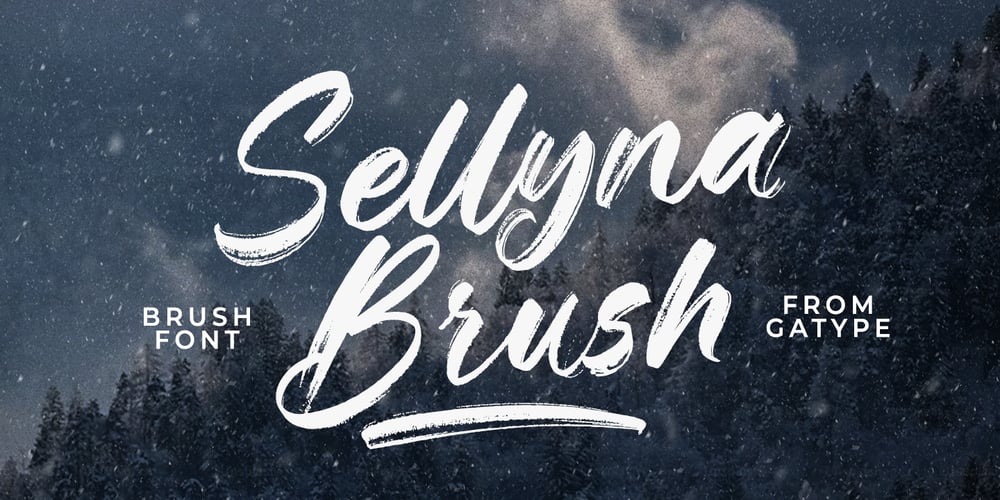
Sellyna Brush Font Family was designed by khaidir and published by Gatype. Sellyna Brush contains 2 styles and family package options. Sellyna Brush is a handwritten script font, based on free-flowing, friendly, and organic signature style expressions. hand painted with love. Sellyna Brush is available with alternative ligatures and characters in the Open Type Feature. Perfect for branding projects, logos, product packaging, posters, invitations, greeting cards, news, blogs, everything including personal charm.How to access all alternate characters, using Windows Character Map with Photoshop:https://www.youtube.com/watch?v=Go9vacoYmBwHow to access all the alternate characters using Adobe Illustrator:https://www.youtube.com/watch?v=XzwjMkbB-wQSellyna Brush is coded with Unicode PUA, which allows full access to all additional characters without special design software. Mac users can use Font Book , and Windows users can use the Character Map to view and copy any of the extra characters to paste into your favorite text editor/app.Thanks a lot for viewing and let me know if you have any questions.